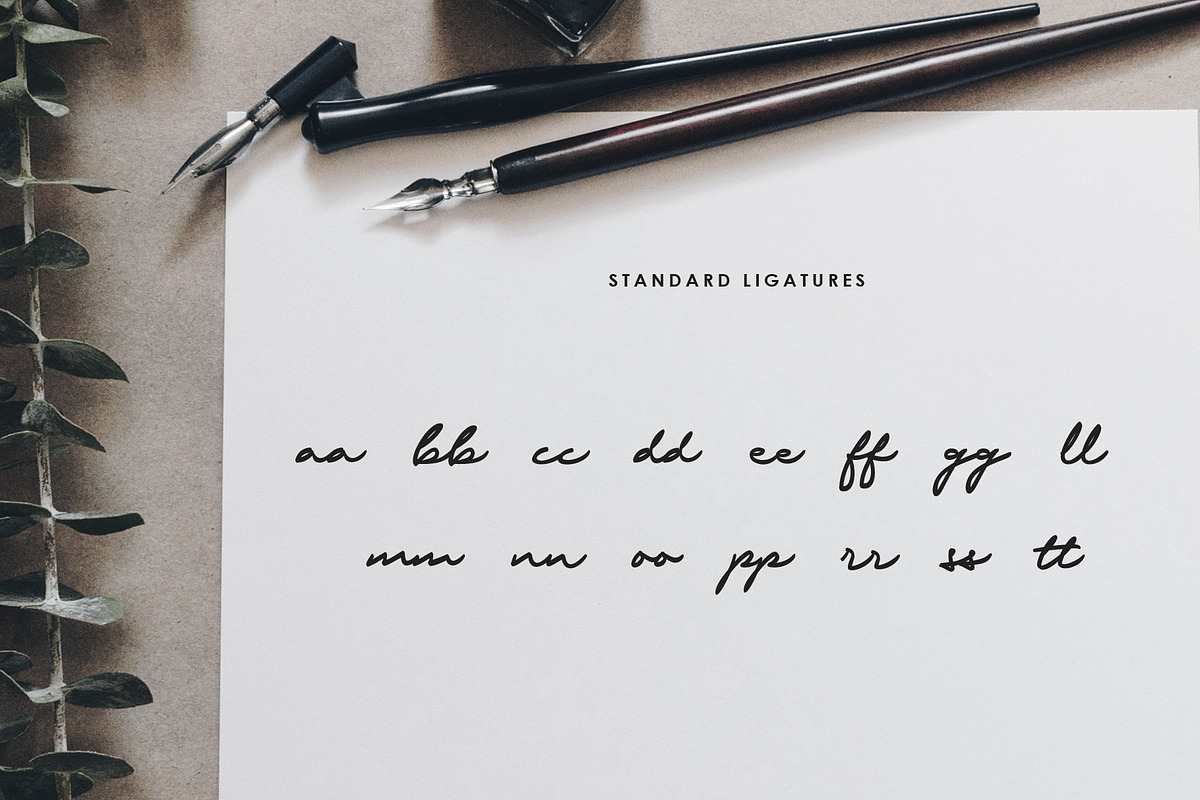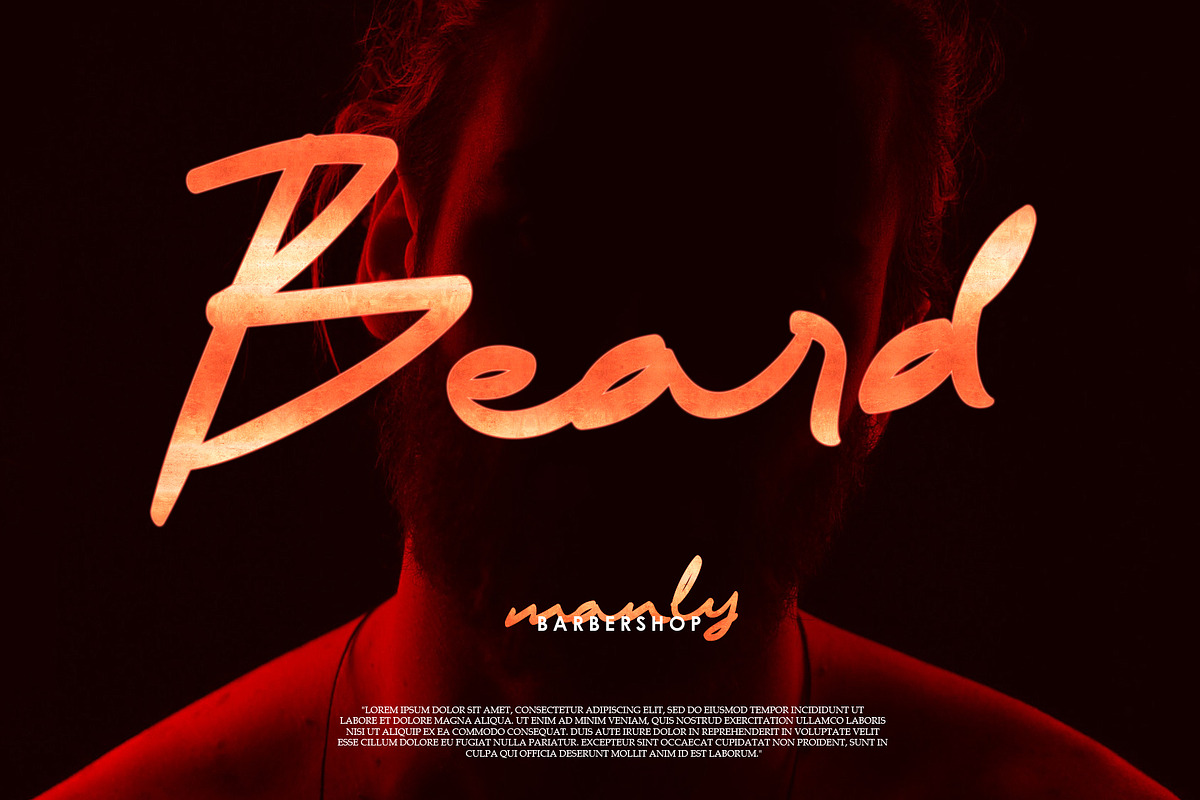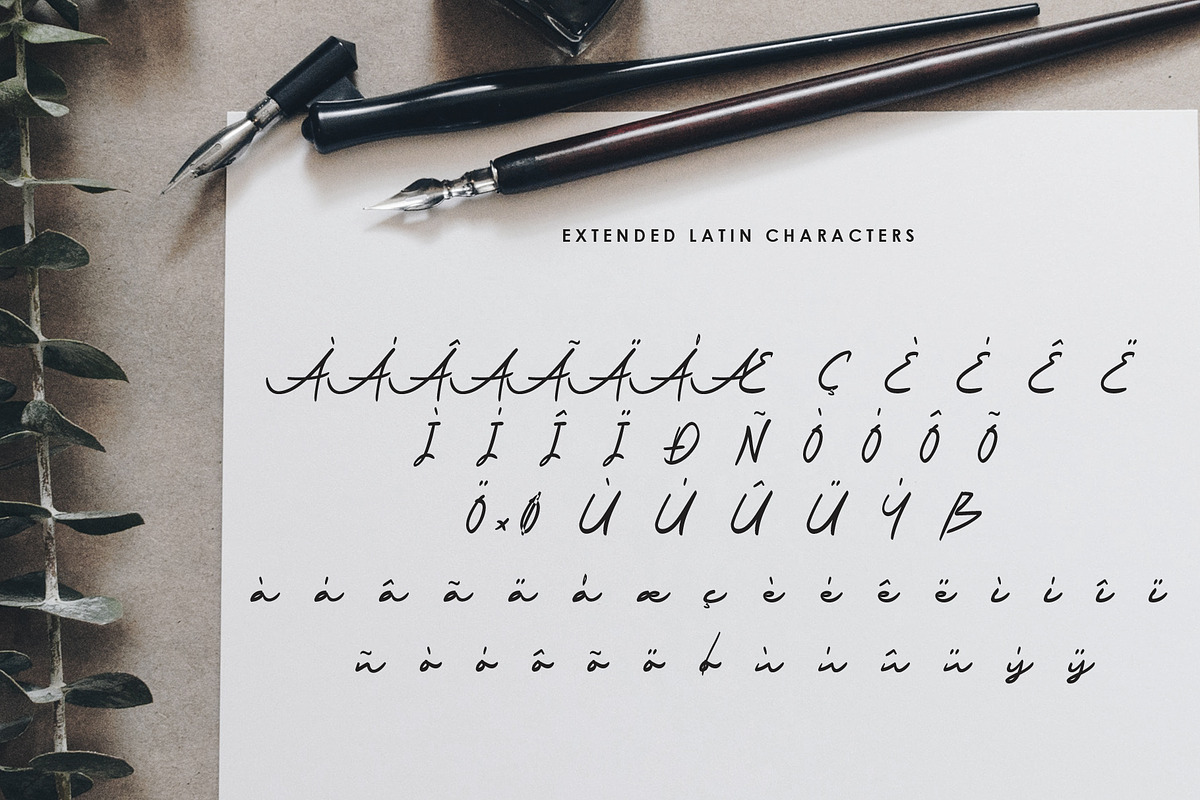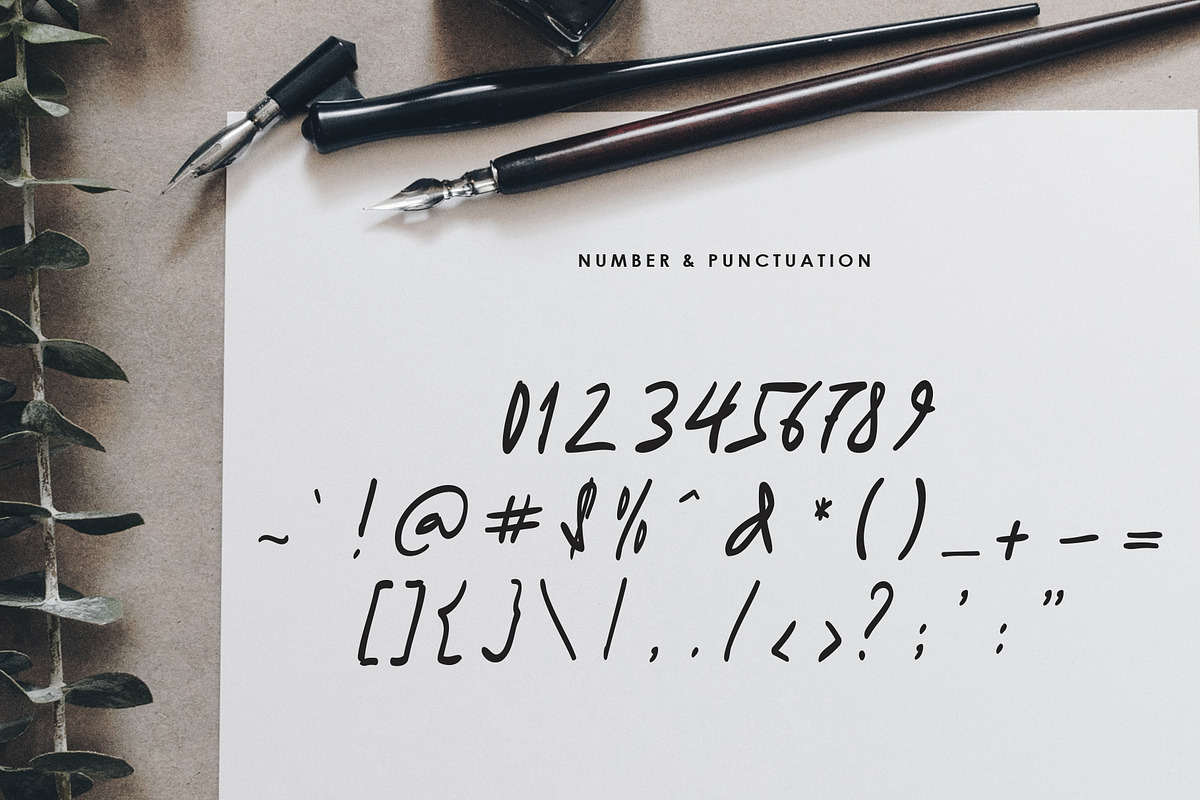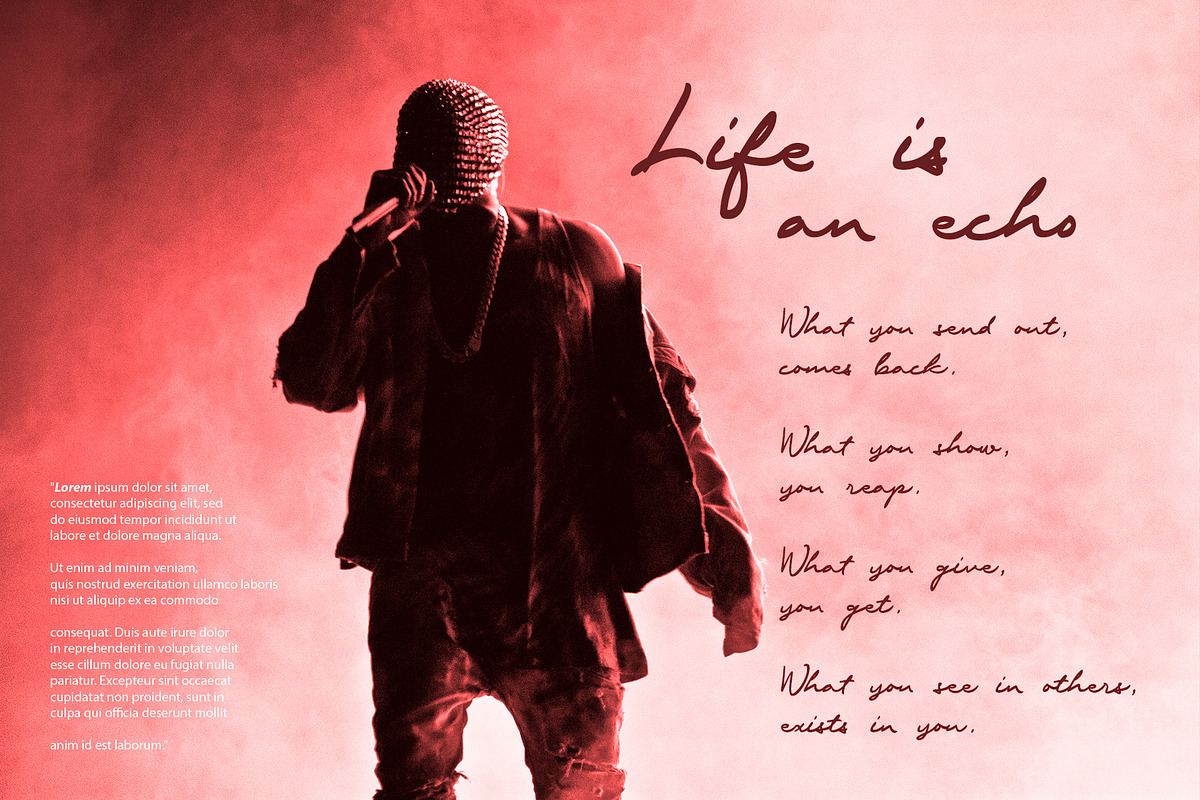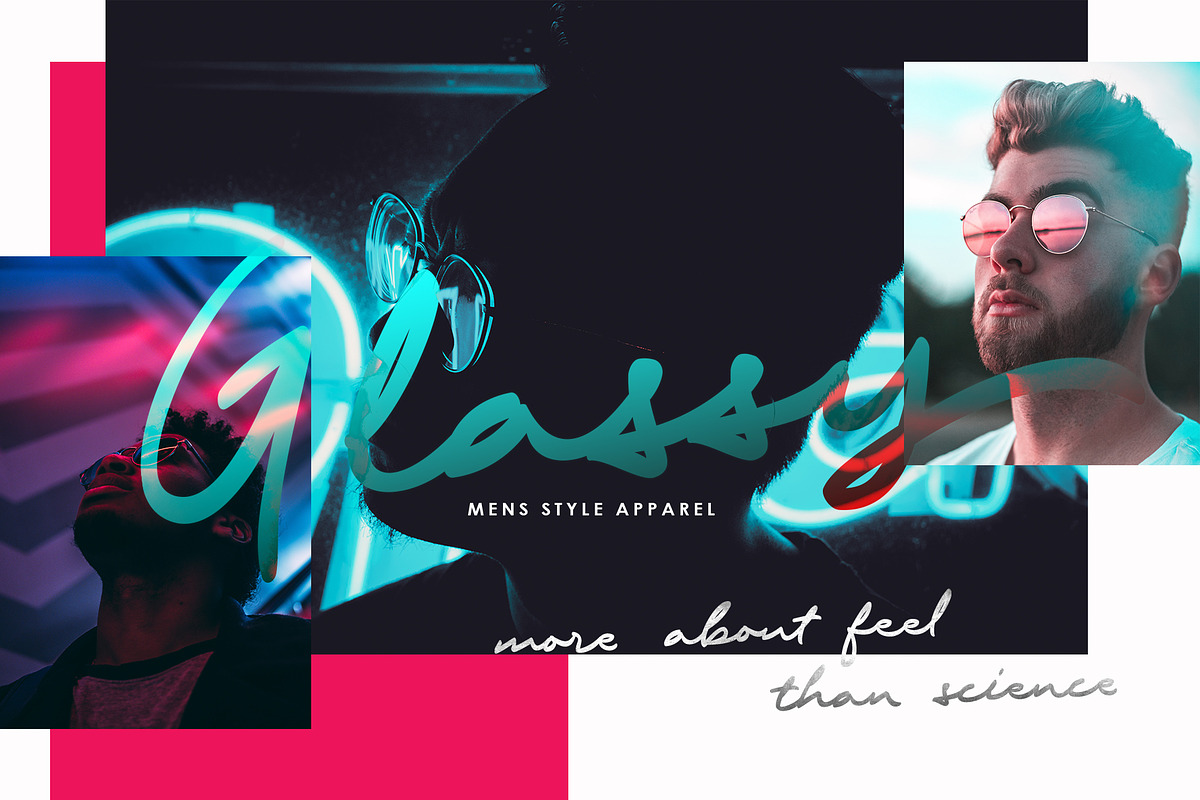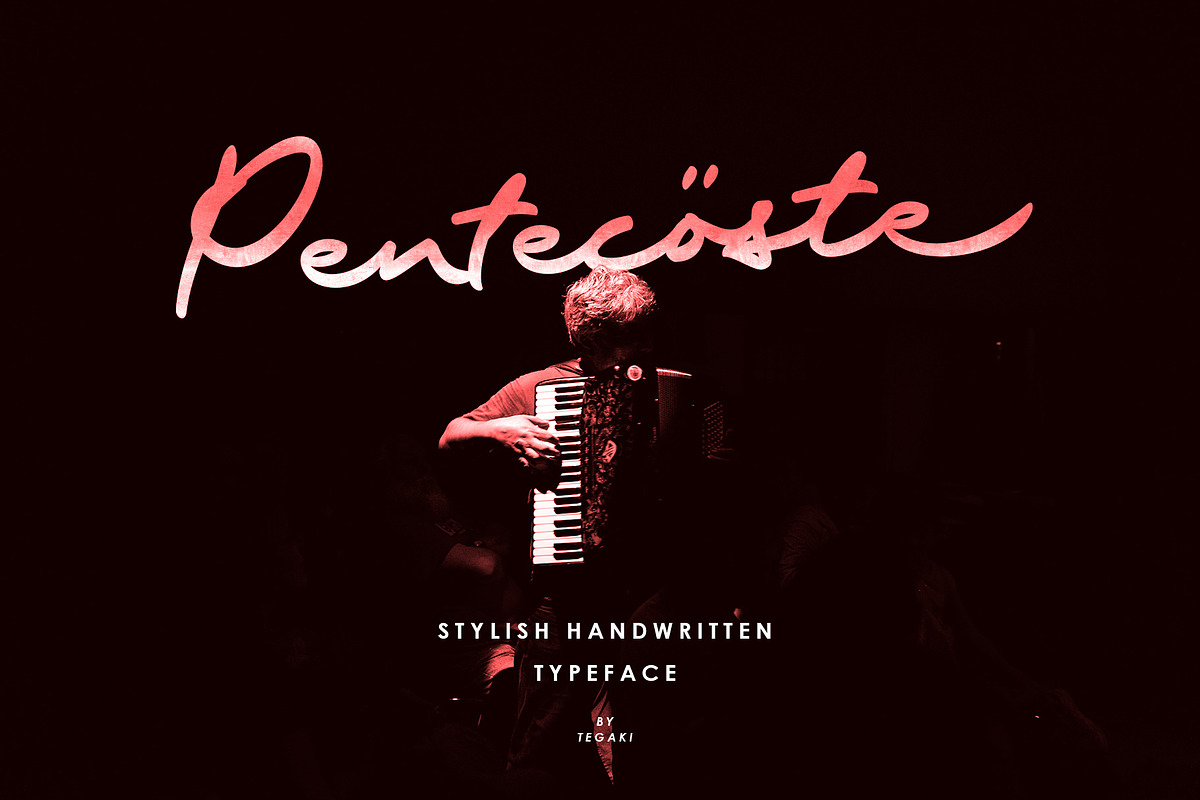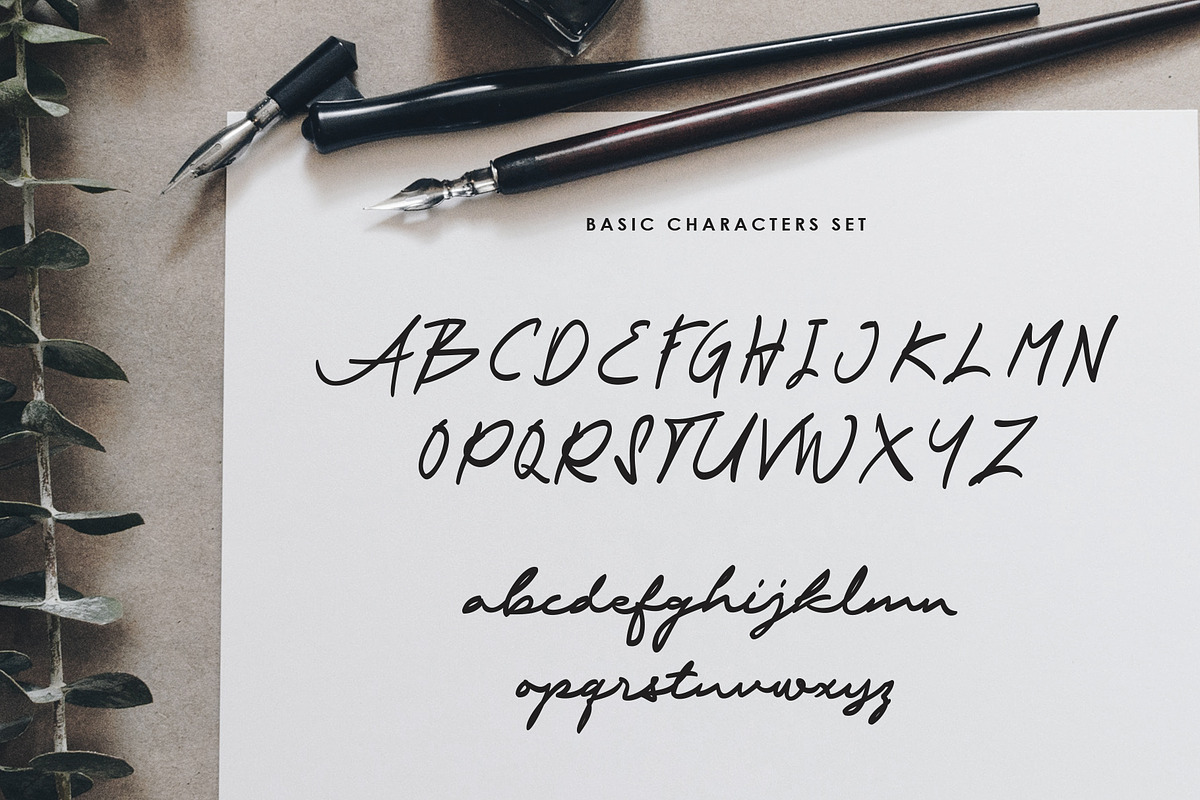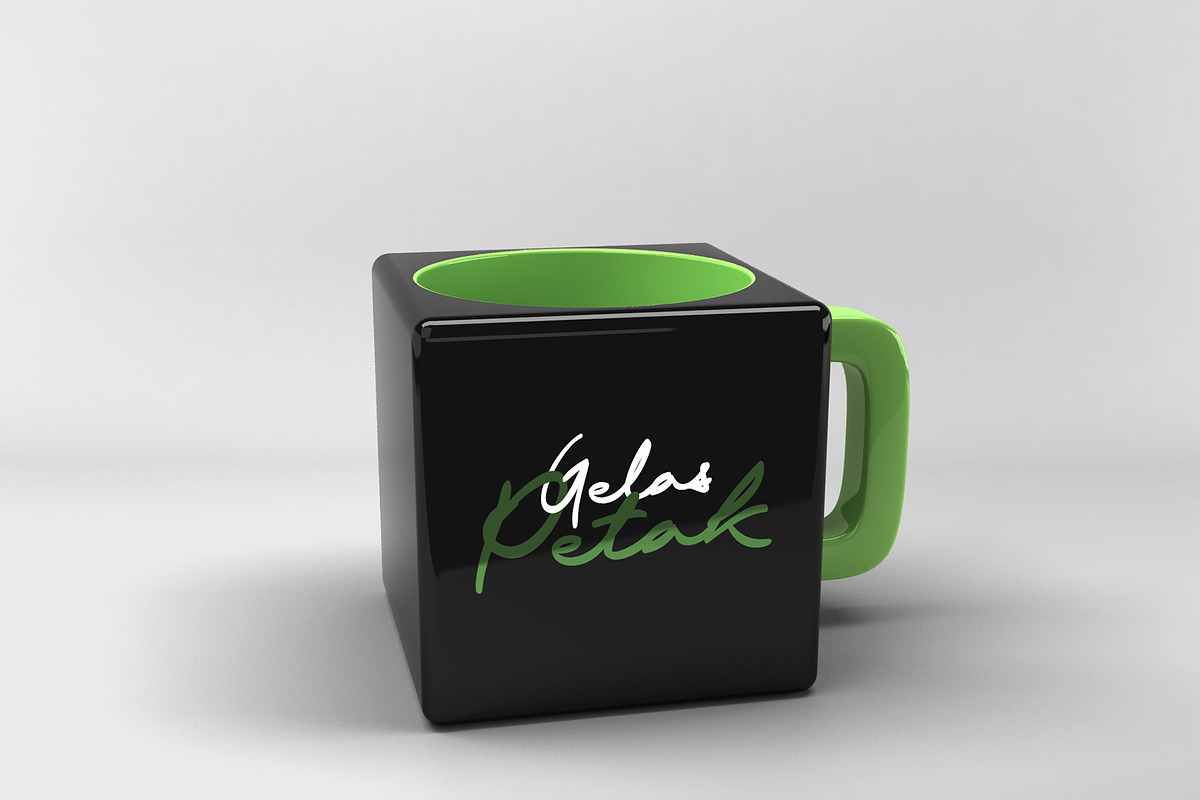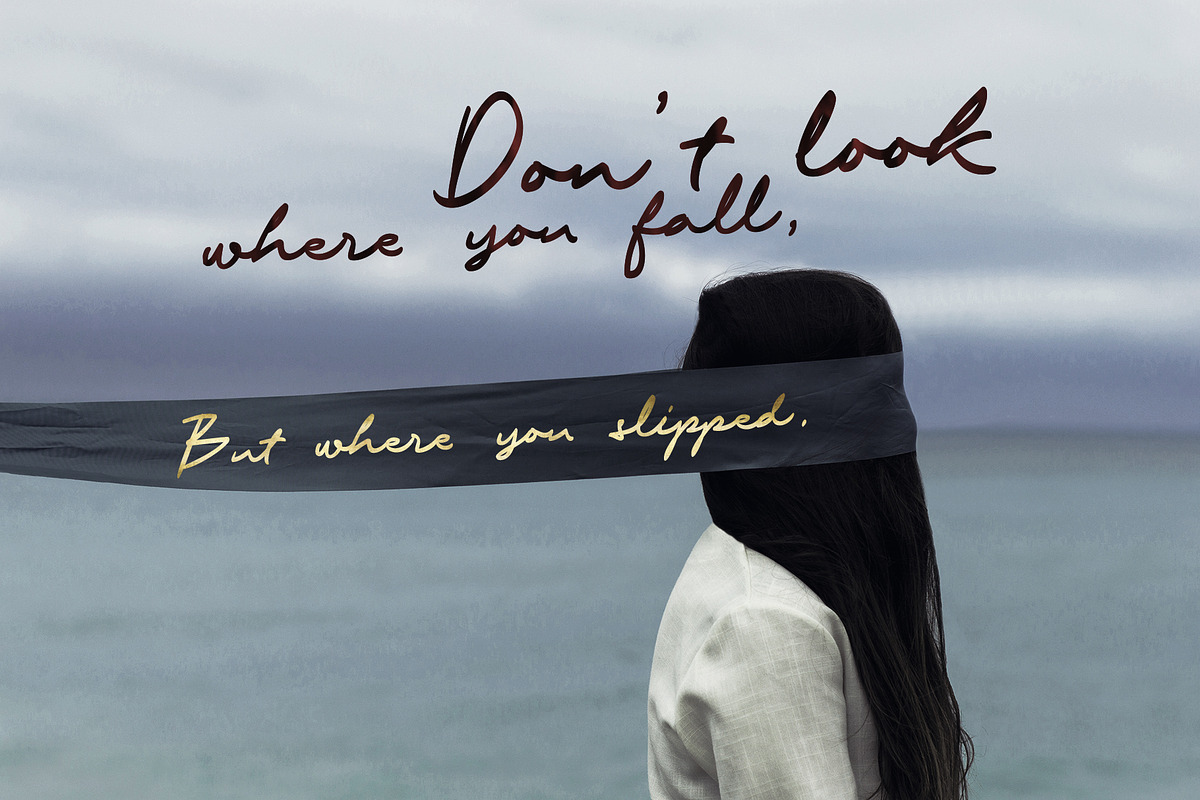
Pentecoste
Introducing Pentecoste
Designed by Tegaki Script
Pentecoste created with stylist and handwritten characters. This handwritten font was PUA encoded. Pentecoste is a natural handwritten style that comes with Extended Latin Characters. Pentecoste works perfectly for logos, display, product branding, wedding invitation card, stationary, packaging, clothing, flyer, apparel, magazines, brochures, lable, posters, badges, etc.
Pentecoste comes with 317 glyphs and 87 alternate characters contain with opentype features (supported with contextual alternates mode). Pentecoste also comes with 15 extended ligatures that allowing you to make stuff looks more exclusive and pro standard.